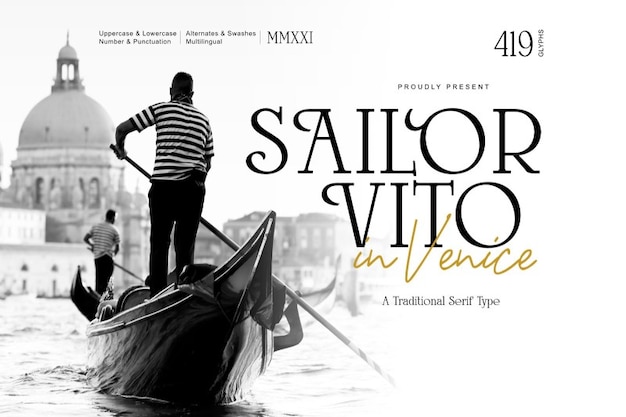
Sailor Vito Font
Sailor Vito exudes Italian elegance and classic charm. With each stroke, it embodies the spirit of timeless Italian design, adding a touch of sophistication to any project. Whether you're crafting invitations or headlines, this font sails smoothly through your creative endeavors, leaving an air of refined beauty in its wake.